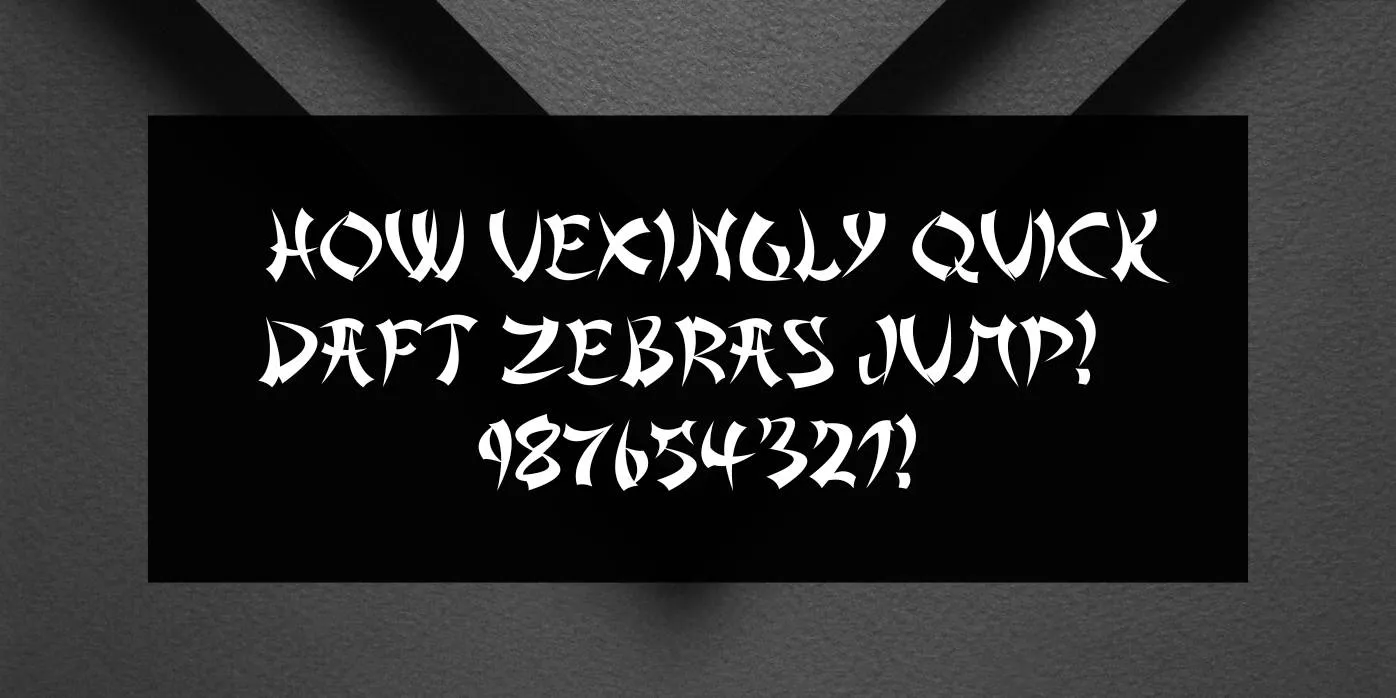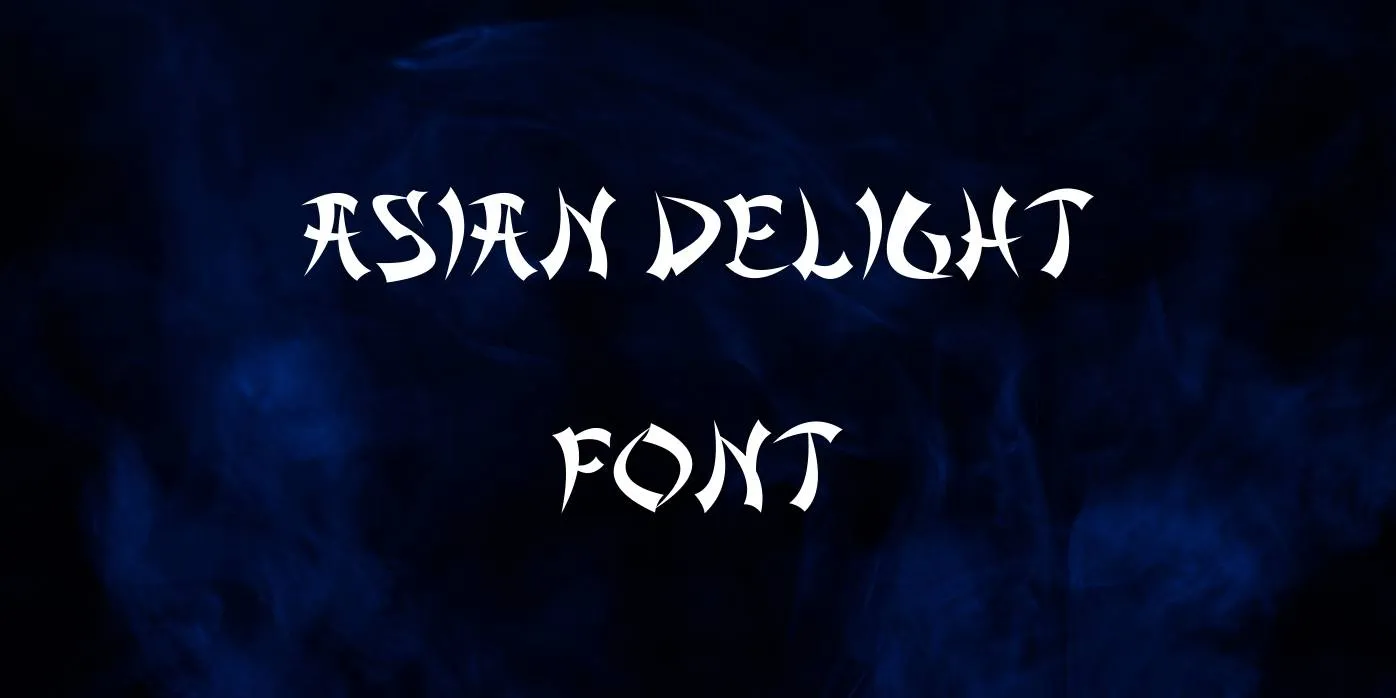
Asian Delight Font
Imagex designed this typeface. Asian Delight Font is a fancy type texture. The characters of this typeface are cool due to its texture and appearance. This font texture easily attracts the clients to your project or design.